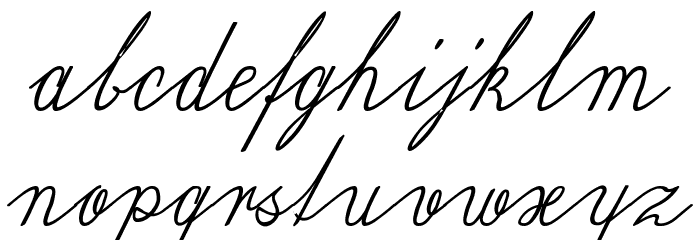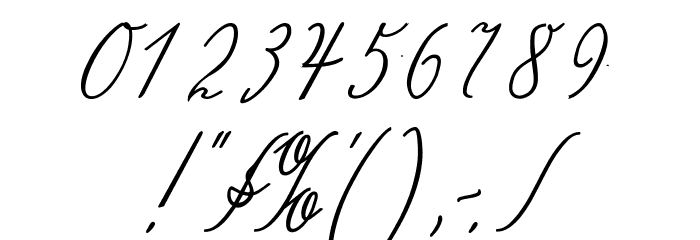
Wiegel Latein Medium Font
This elegant script font features flowing, cursive letters with a classic and sophisticated appearance. The uppercase letters are ornate and slightly larger than the lowercase, which are more streamlined but maintain the same graceful curves. The numbers and special characters are consistent with the overall style, offering a cohesive look. The strokes are smooth and connected, giving a handwritten feel that is both personal and formal. This font is ideal for projects that require a touch of elegance and refinement, such as invitations, greeting cards, or branding materials. The balance between the letters ensures readability while maintaining an artistic flair.
An elegant script font with flowing, cursive letters and a classic, sophisticated style.
- Proposed Projects: Ideal for wedding invitations, greeting cards, elegant branding, and formal event materials.
- Overall Style: Classic
- Use Case: Logos, Invitations, Greeting Cards